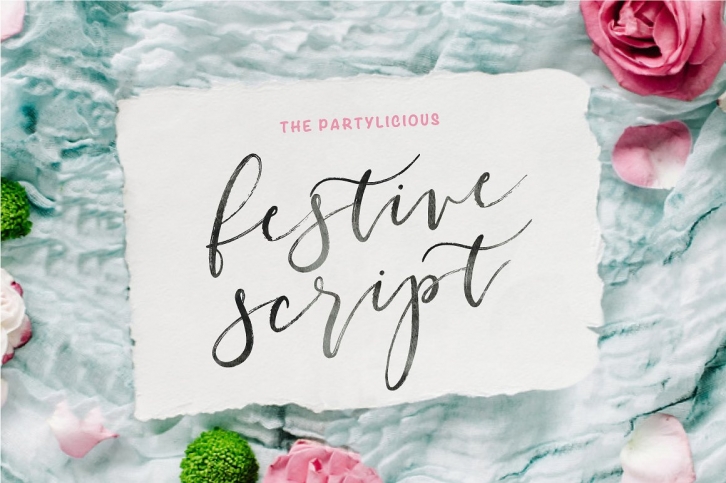
The Partylicious Festive Script is a trendy and unique font with an authentic style. It was designed by WornOutMedia and it's a great choice for creative people who need such a font. It was released on May 12, 2017 and the file size is 14.85 MB. The Partylicious Festive Script will add an organic vibe to any design idea!